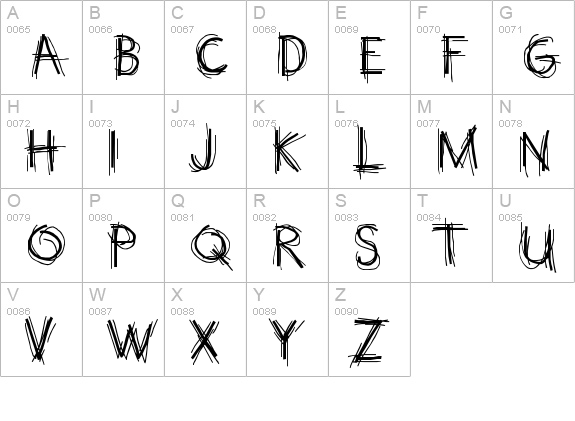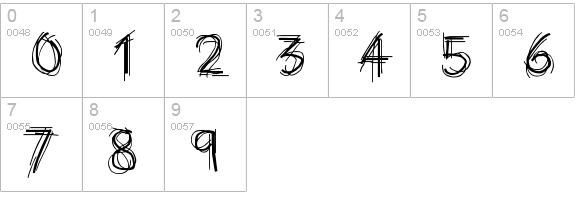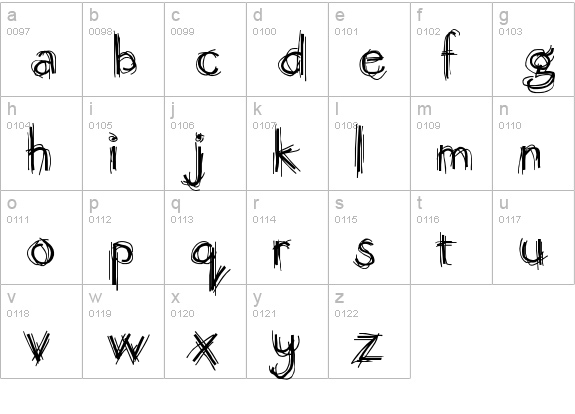
OctemberScript Font Details
OctemberScript is a charming and elegant handwritten font that exudes a sense of creativity and sophistication. With its flowing strokes and unique letter shapes, this font is perfect for adding a personal touch to your designs. Whether you're working on invitations, branding, or social media graphics, OctemberScript will elevate your projects with its whimsical yet refined appearance. The best part? OctemberScript is completely free to download at FontsMarket.com. Now you can effortlessly incorporate this stunning font into your work without breaking the bank. Don't miss out on the opportunity to enhance your designs with the beauty and versatility of OctemberScript. Download it today and let your creativity shine!